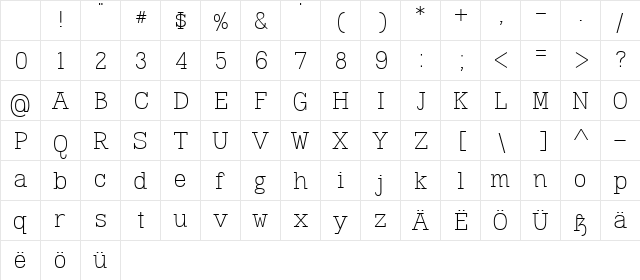
Complete Dusseldorf Regular glyph index. Displaying only characters natively supported by Dusseldorf Regular font.
Dusseldorf is a composed and adaptable typeface that performs quietly and consistently across a wide range of design contexts.